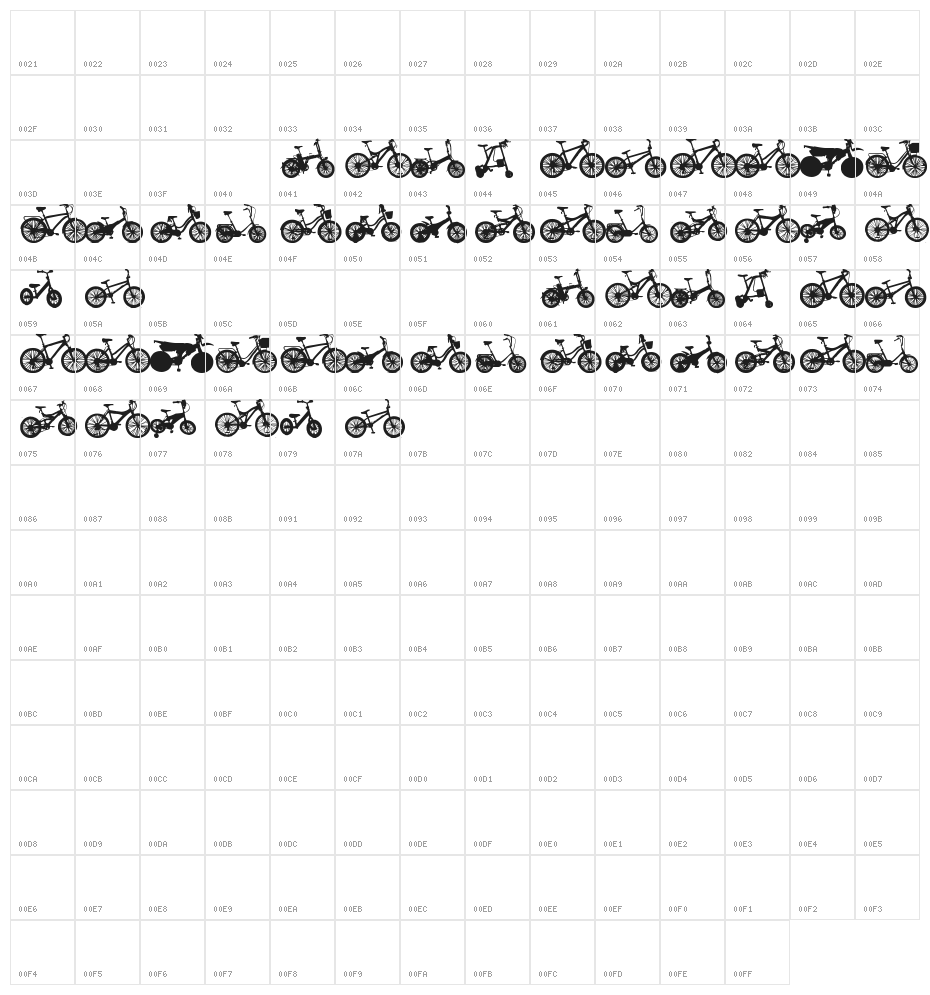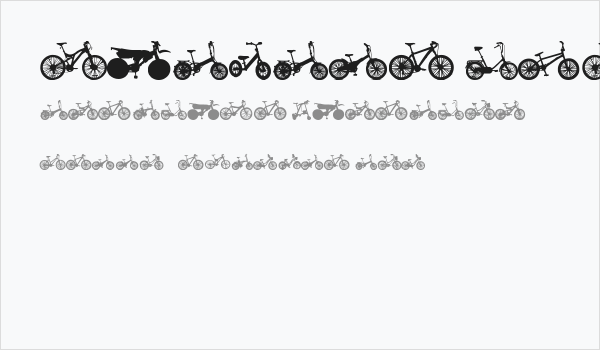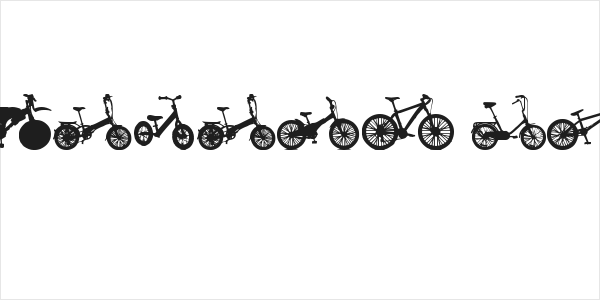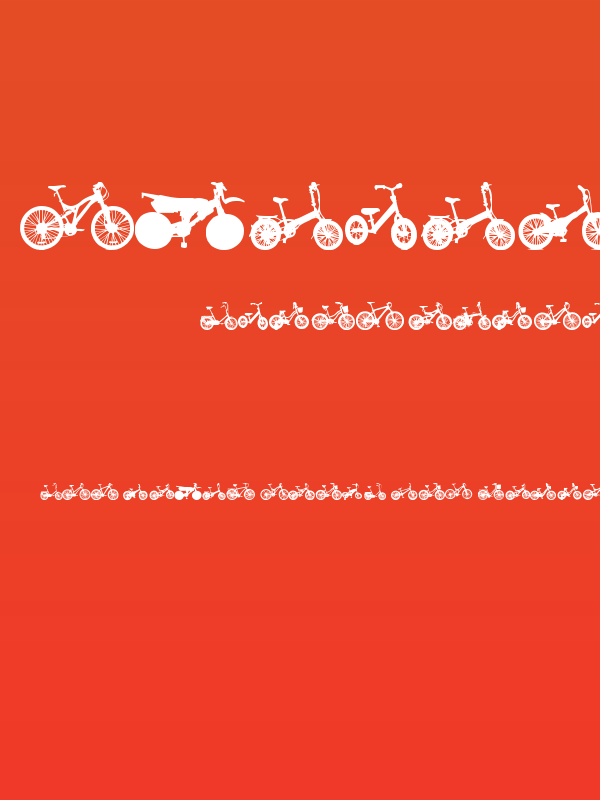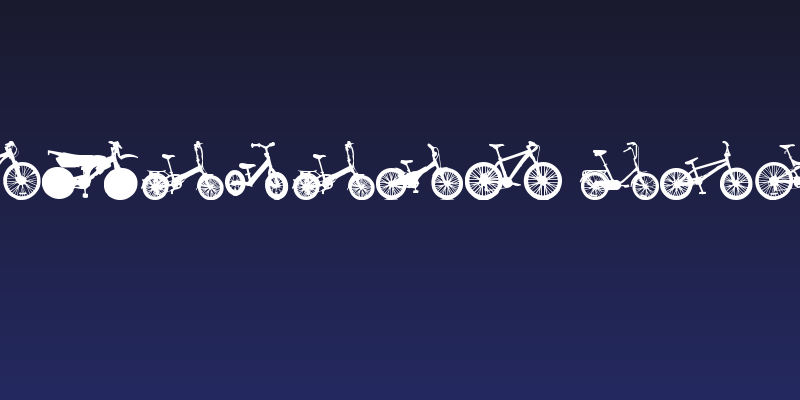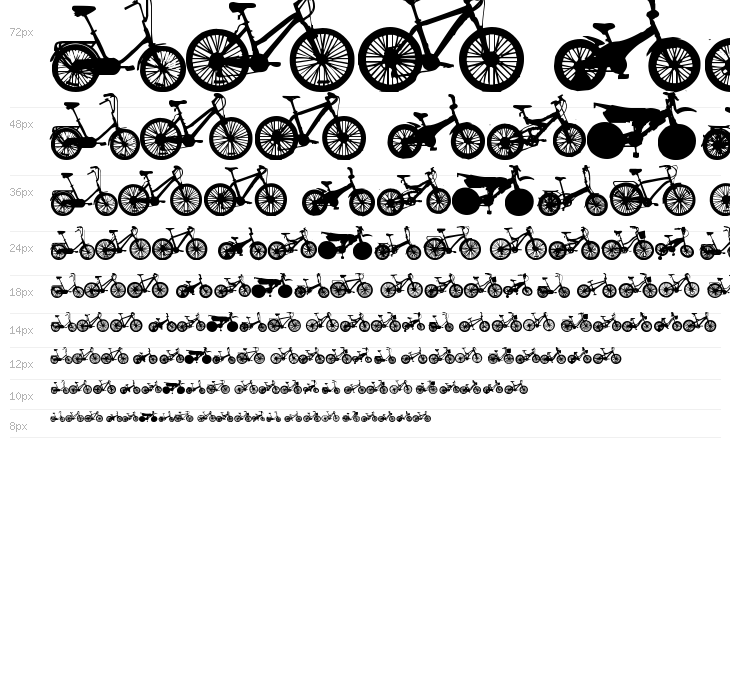
bicycle tfb Font
bicycle tfb Description
This is a decorative font featuring a variety of bicycle silhouettes, each representing a different letter or character. The designs are detailed and playful, capturing the essence of different bicycle styles, from classic to modern. The font is highly illustrative, making it more suitable for creative and thematic projects rather than traditional text. Each character is a unique bicycle design, offering a whimsical and artistic touch to any project.
Use CaseLogos, Posters, Themed Invitations
Proposed ProjectsIdeal for cycling event posters, themed invitations, or any project requiring a playful and unique decorative touch.